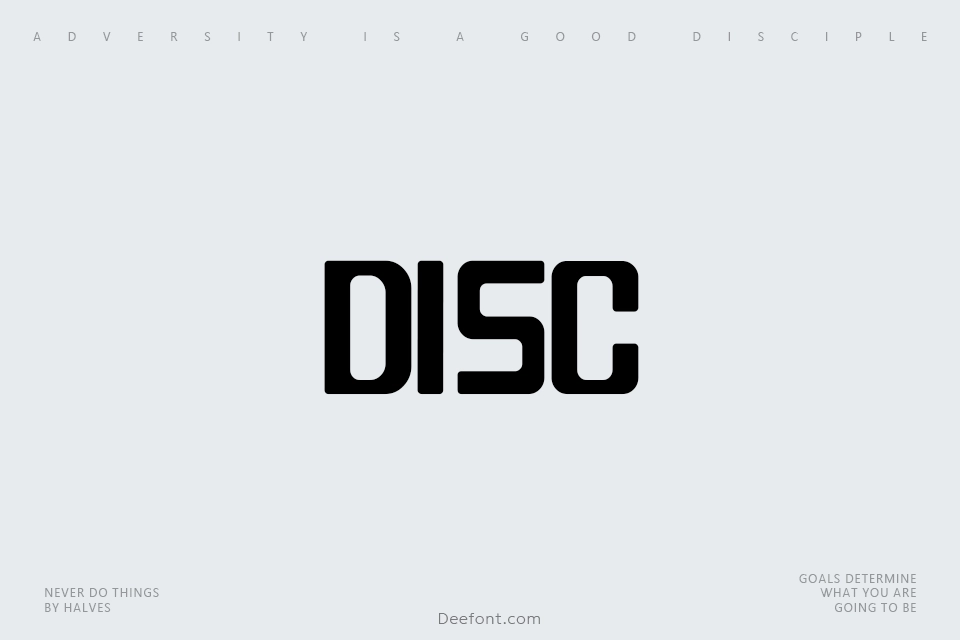
Disc Font
Disc is a modern techno display sans-serif font with tight spacing and geometric design sensibilities. Originally inspired by Harry Winters’ Roslyn Gothic from 1972, this typeface features relatively low contrast and a condensed structure that creates an edgy, contemporary aesthetic. With 221 glyphs and multiple weight variations, Disc delivers a futuristic appearance ideal for logos, headlines, posters, and technology-focused branding projects. The font’s humanistic feel combined with its industrial edge makes it perfect for forward-thinking design applications.